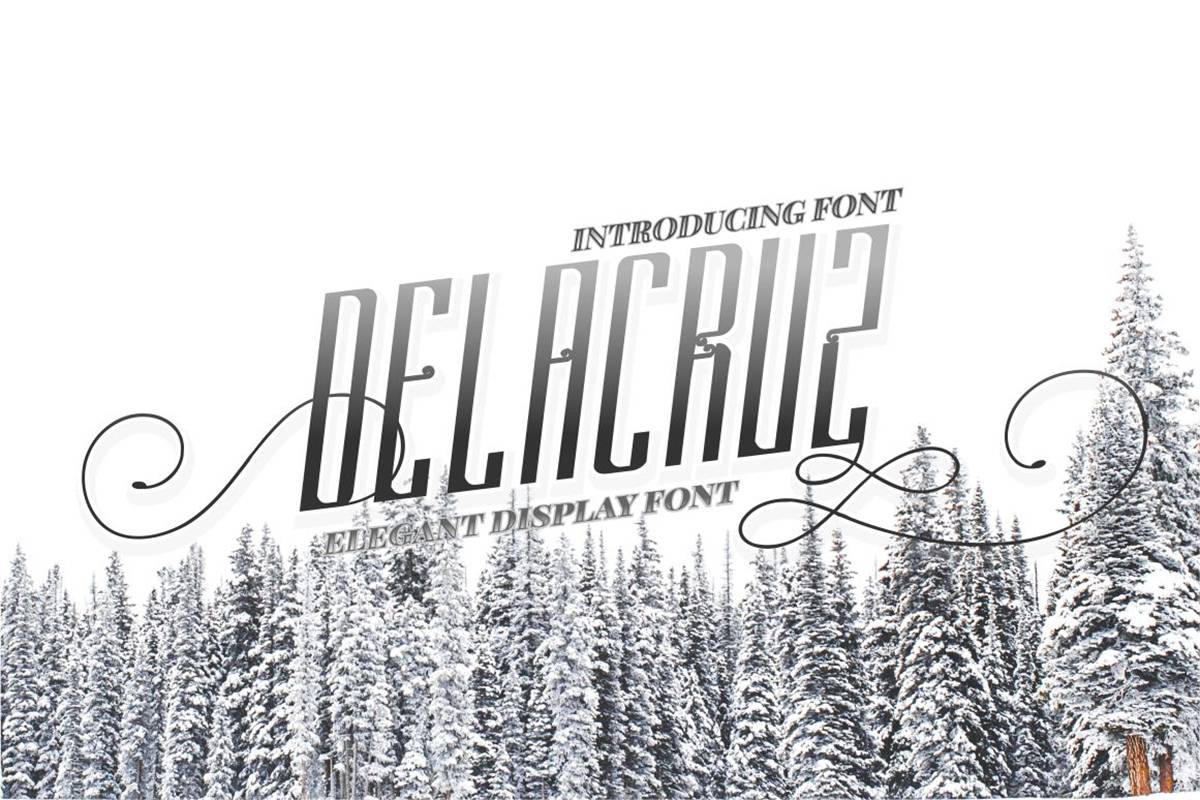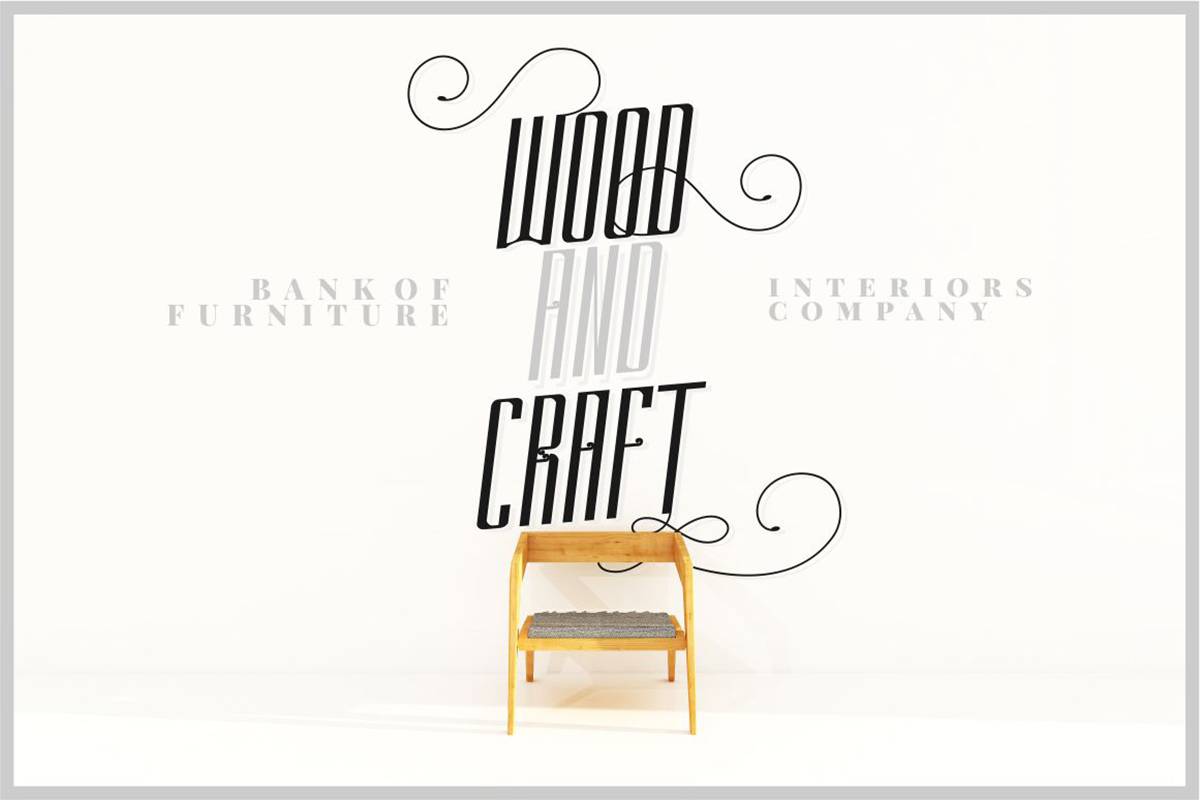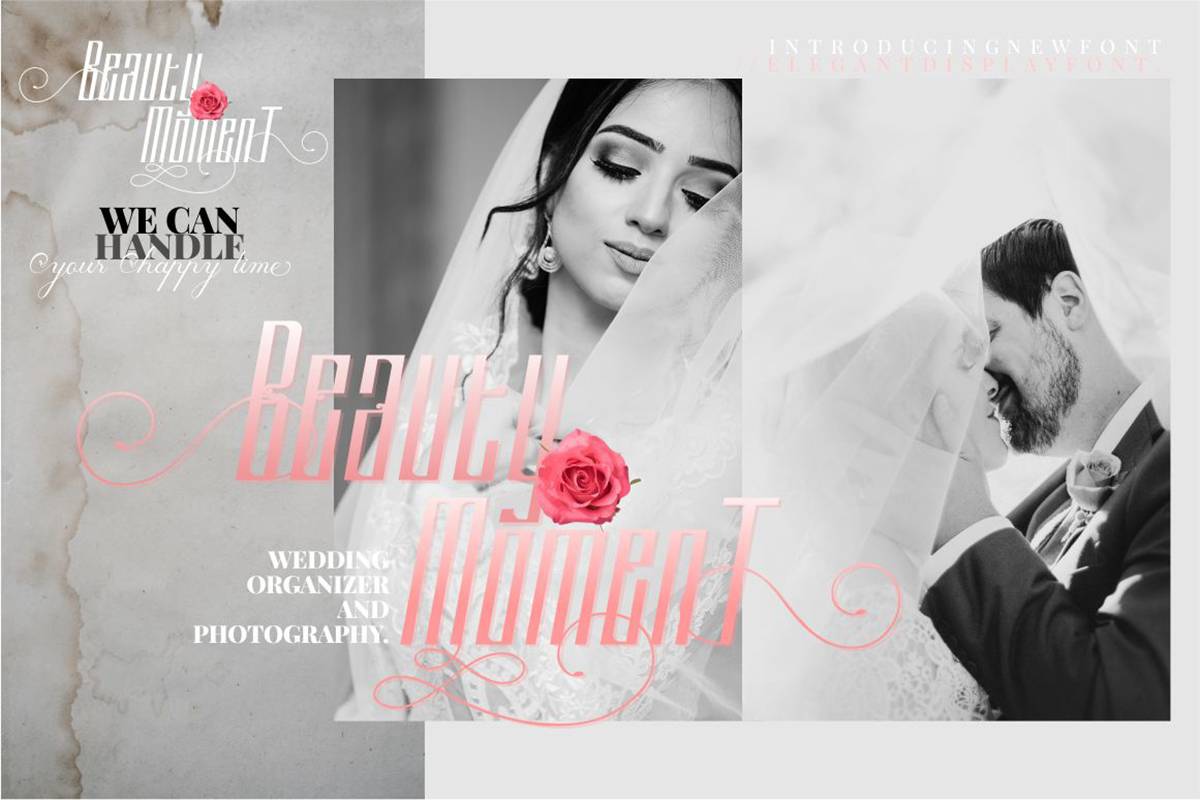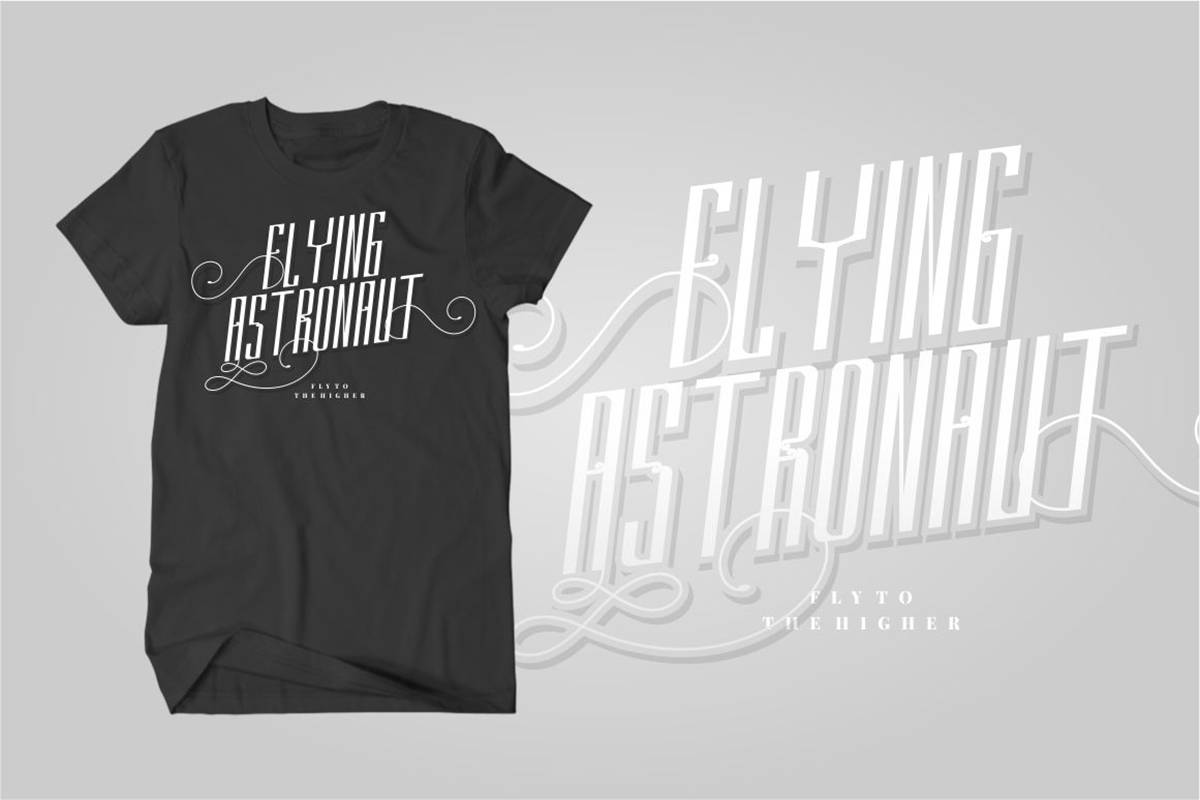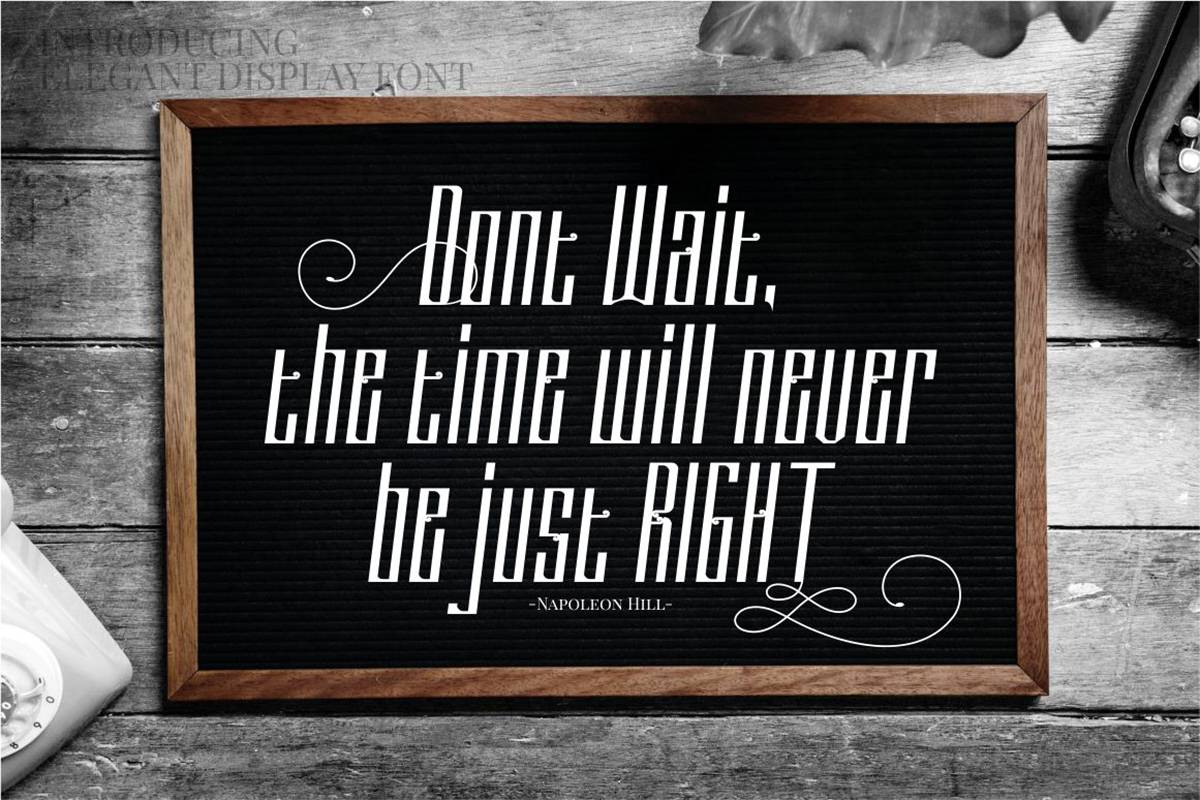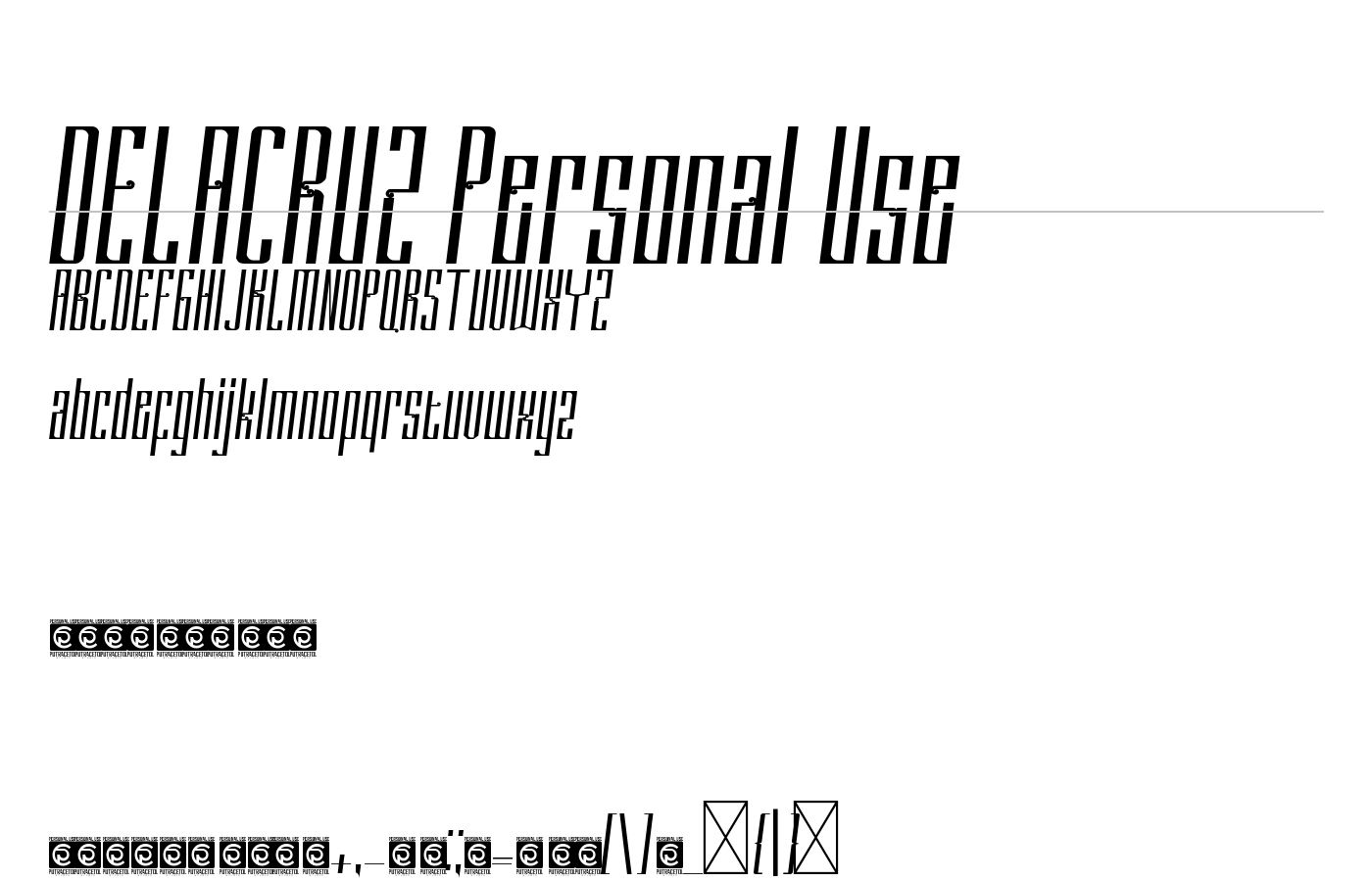
Delacruz is a tall, narrow sans serif font with a modern, slightly futuristic vibe, featuring high contrast between thick and thin strokes. Its condensed letterforms, sharp edges, and unique decorative cuts give it a distinctive, edgy personality ideal for attention-grabbing headlines, logos, and branding in creative or tech-focused fields. This font works best in display contexts where its clean but striking style can stand out without sacrificing readability.
Delacruz Font
About Delacruz Font
| Font family | Delacruz Font |